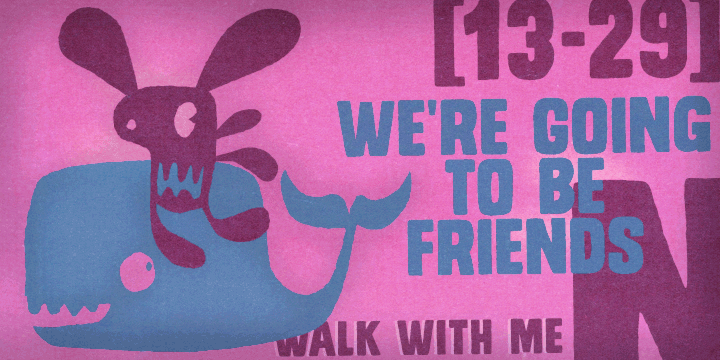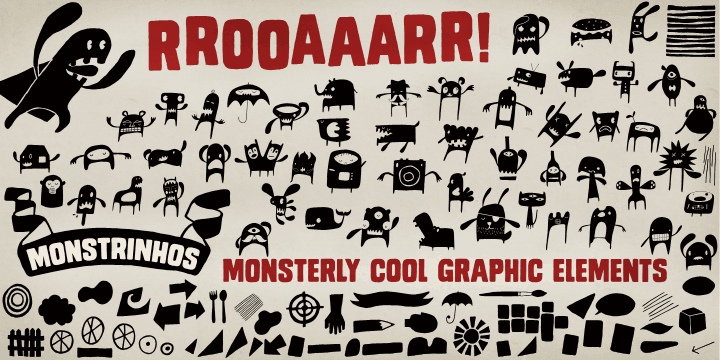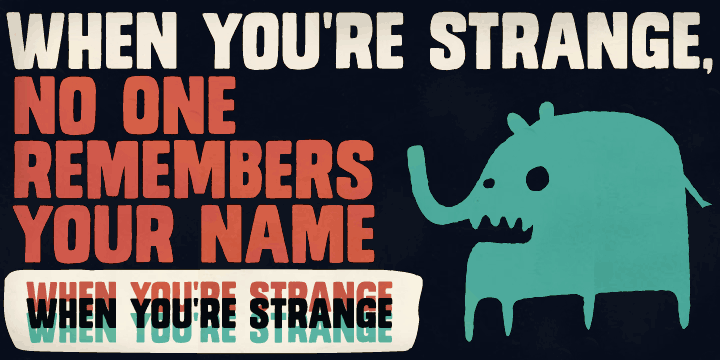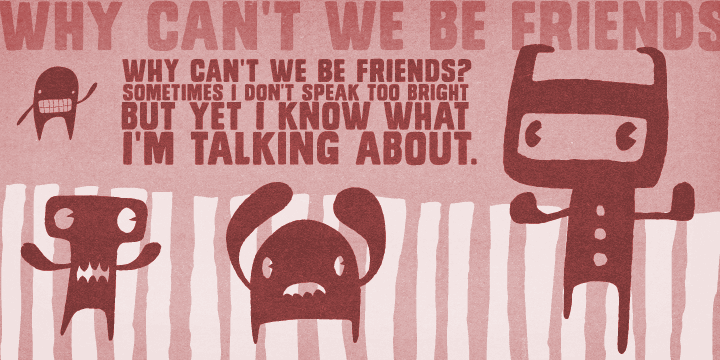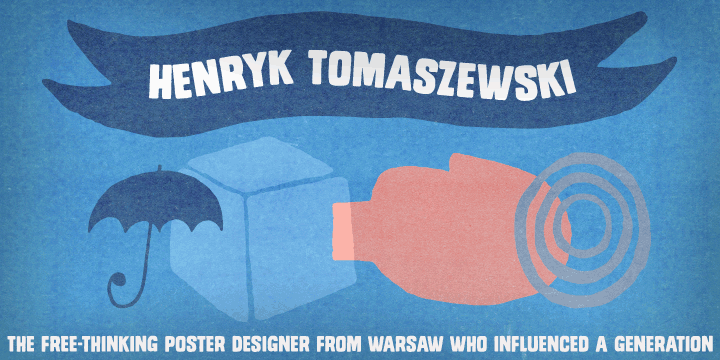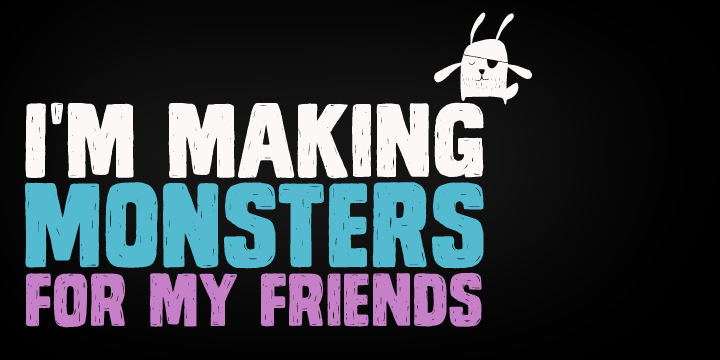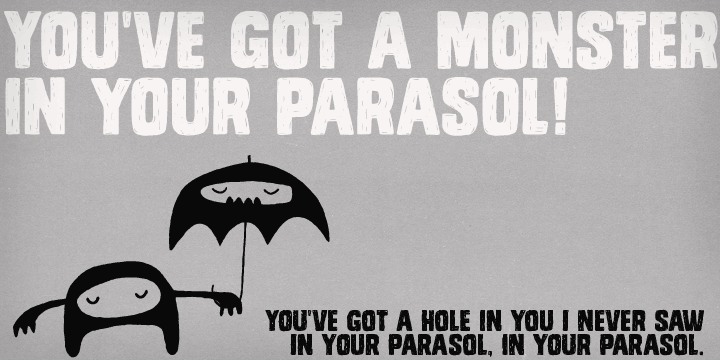
Monstro is a dingbat and display sans font family. This typeface has three styles and was published by PintassilgoPrints.
Monstro is a monsterly cool hand-crafted typeface with different lettershapes on upper- and lowercase slots (although being an all-caps font). When working in OpenType savvy applications, the contextual alternates feature can take care of alternating the glyphs, preventing double letters from showing the same lettershape, while bringing more spontaneity to your designs. There is also a set of stylistic alternates for added amusement: just turn on the stylistic alternates feature or pick the glyphs manually.
Monstro comes in 2 versions: sketchy and solid, both hand-drawn. And yet there is the matching picture font that brings a big bunch of irresistible monsters and other very cool graphic elements.
Sans-serif and bold, useful and friendly, these fonts are quite perfect for a monsterful of purposes. I can tell that you are gonna be friends!